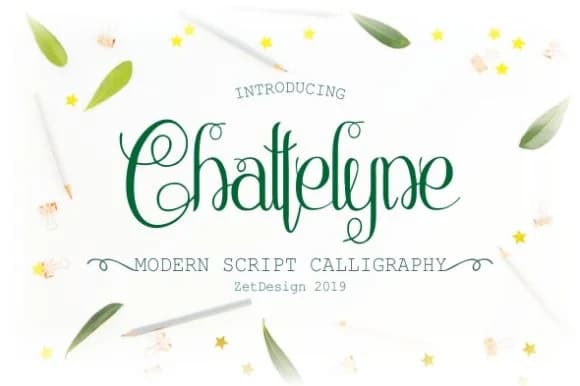
Chattelyne Font by ZetDesign captures the grace of hand-drawn calligraphy with an understated elegance that feels personal without being overwrought. This delicate script brings refinement to any design that calls for sophistication and a human touch.
The flowing letterforms and expressive swashes make Chattelyne ideal for wedding invitation suites, where it pairs beautifully with understated details like pressed flowers or watercolor accents. Save-the-date announcements, anniversary cards, and formal event menus all benefit from its refined character. Couples planning luxury celebrations often choose scripts like this for monogram designs on wedding favors and personalized stationery. Event planners and stationery designers reach for it when creating high-end greeting card collections, rehearsal dinner programs, and engagement announcements. The font includes an extended glyph set and language support, so you can deploy it across international projects and complex typographic needs without limitation.
Pairing Chattelyne with a clean, modern sans-serif for body text keeps your designs visually balanced and ensures information remains accessible alongside the script's decorative flourishes. The contrast between the ornate letterforms and minimal supporting typeface creates visual hierarchy that works across both digital and print applications. Pick up Chattelyne on Creative Fabrica and explore how its refined character can bring quiet sophistication to your next celebration design.
Chattelyne Font is a script font that shines as a display or heading face. Pair it with a clean sans-serif or serif font for body text β the contrast creates a clear hierarchy while the two styles stay balanced and easy to read.